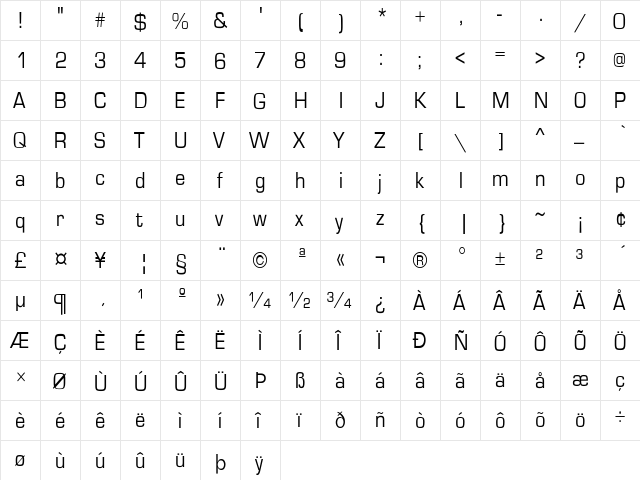
EurostileCnd-Normal Regular
Design Context for EurostileCnd-Normal Typeface
EurostileCnd-Normal is a composed and adaptable typeface that performs quietly and consistently across a wide range of design contexts.